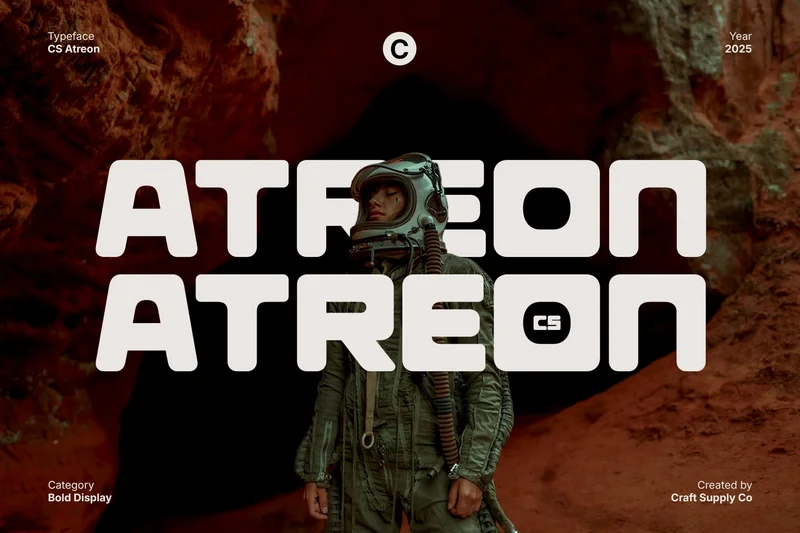
Atreon – Bold Display Font
CS Atreon – Futuristic Power with Geometric Precision
Bold Display Sans Serif for Maximum Impact This is a bold display sans serif font built to make a statement. Designed for attention and clarity, it combines solid geometric forms with futuristic flair, creating a powerful typographic presence that stands out in any visual composition.
Geometric Structure with Futuristic Style Each letter in this font reflects precision and modernity through its structured geometry and sleek lines. The futuristic influence gives it a forward-looking aesthetic, making it ideal for tech-inspired projects, digital media, and contemporary branding.
Expressive and Eye-Catching Design This font balances strength with style, offering expressive character while maintaining readability. Its bold forms and clean angles make it perfect for commanding headlines, impactful posters, and statement making designs that demand attention.
Perfect for Modern Branding and Digital Visuals From futuristic branding to digital campaigns and editorial layouts, this font delivers a cutting-edge look. Its bold geometry and innovative design make it an essential choice for projects that seek to express confidence, modernity, and creative power.